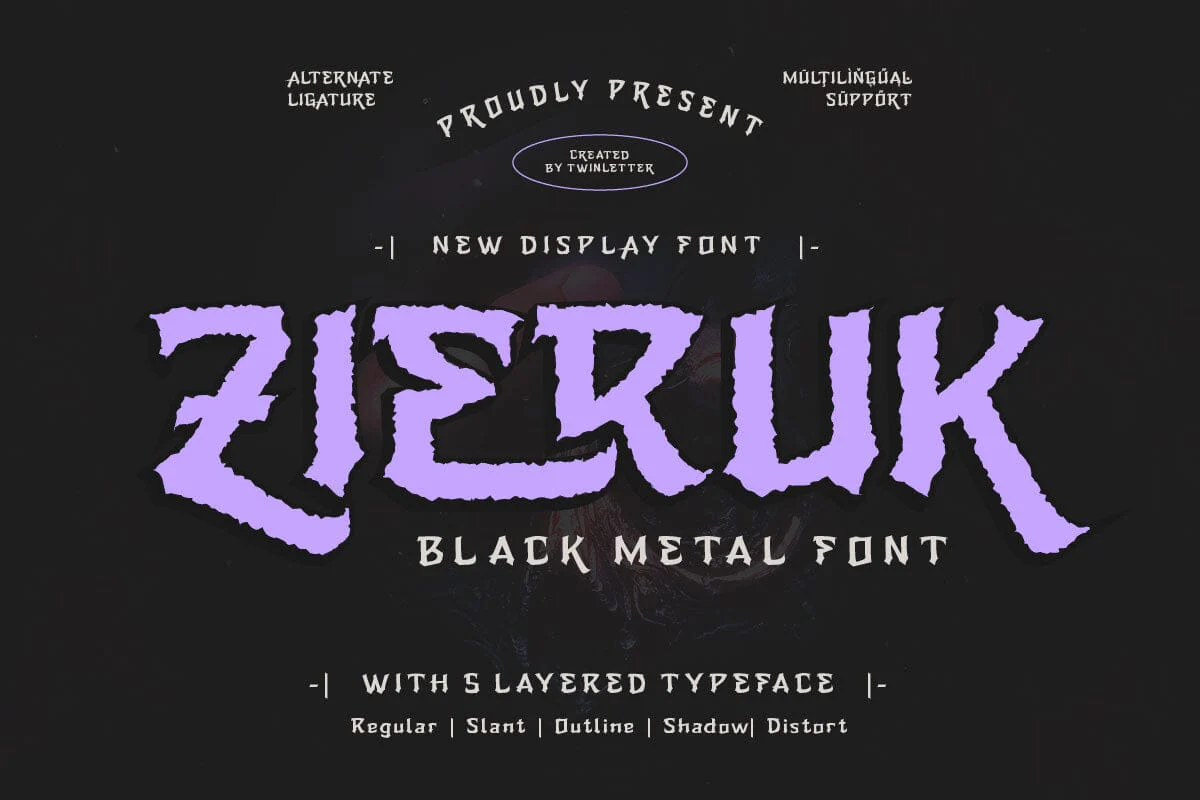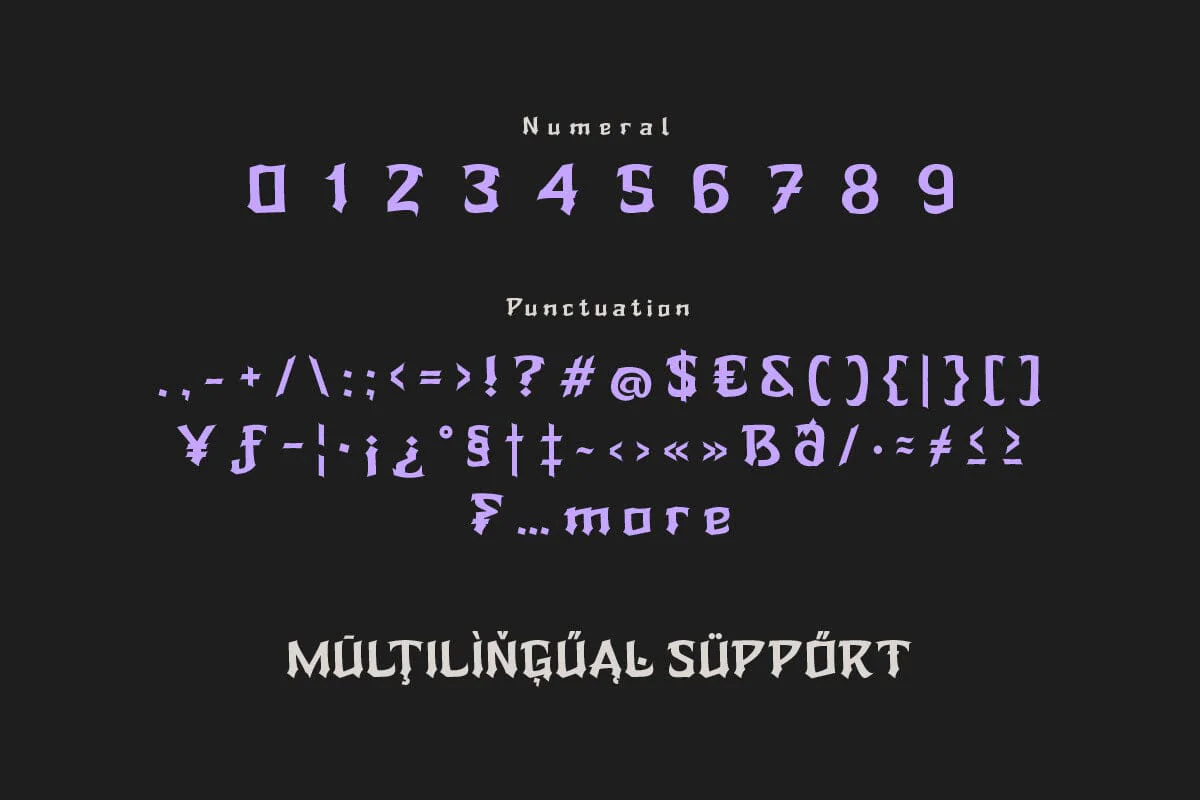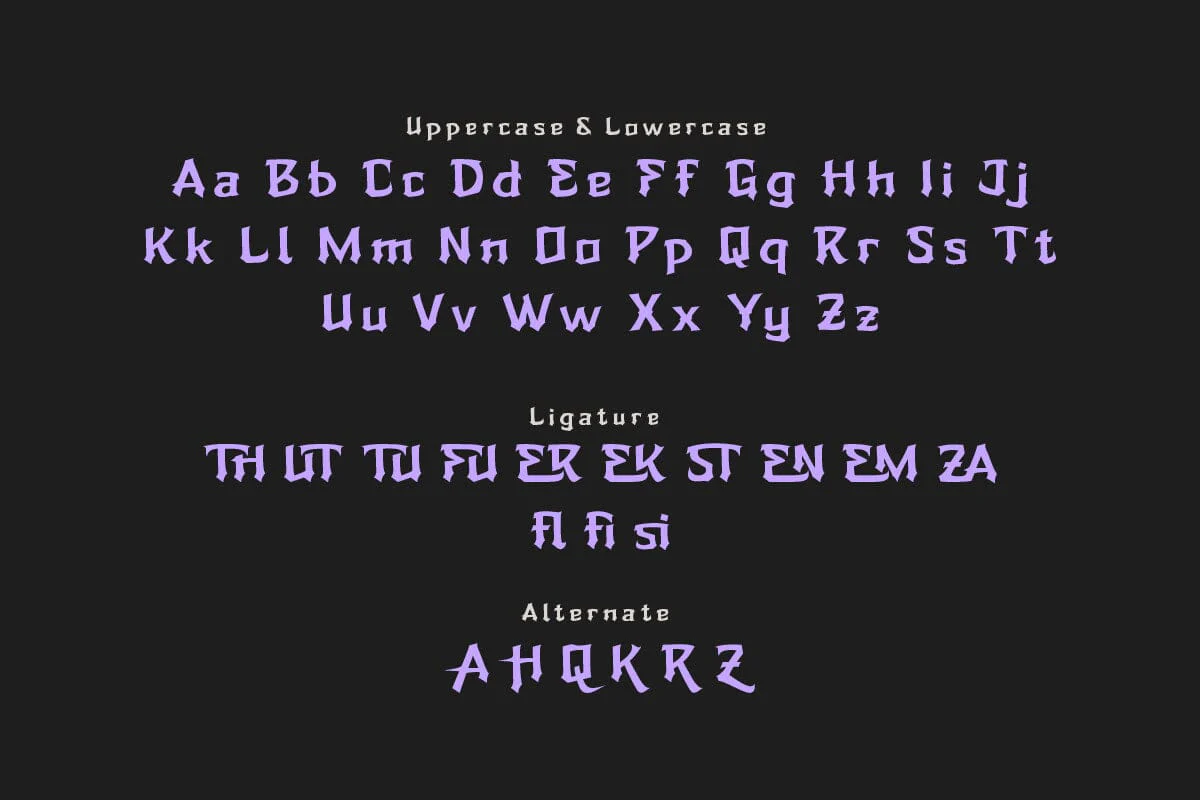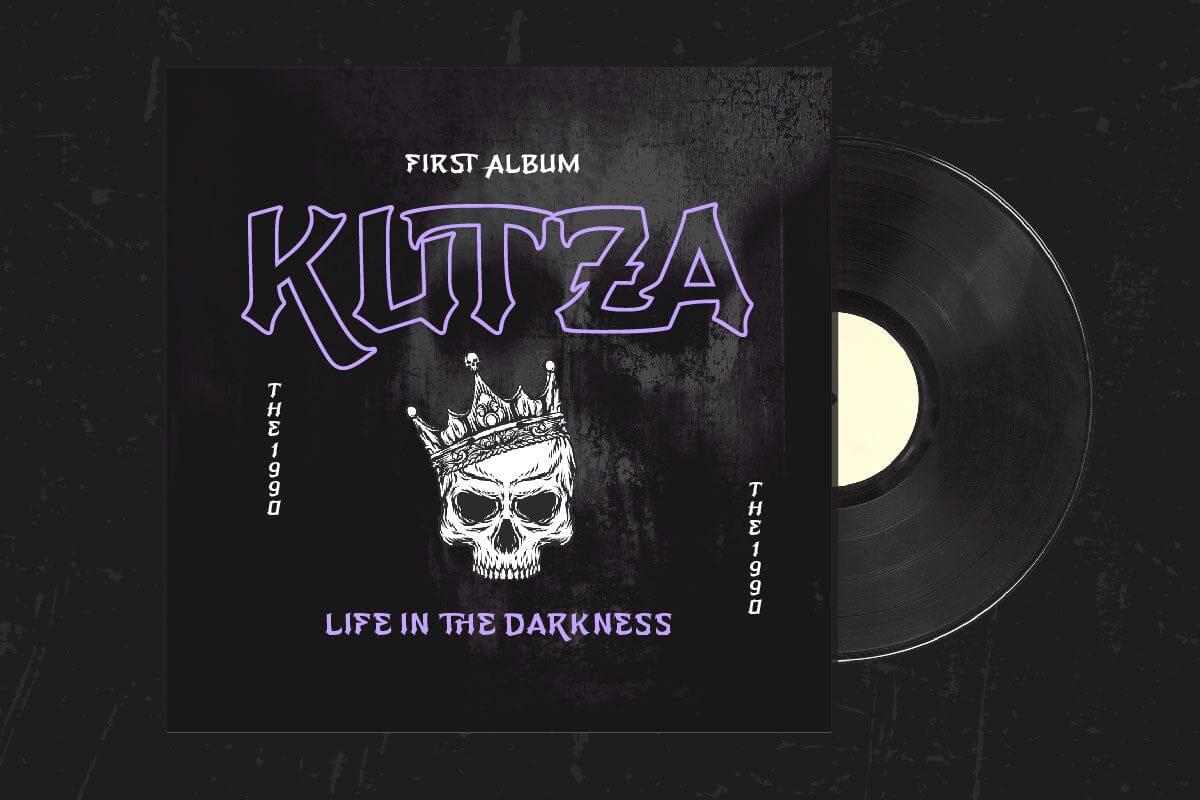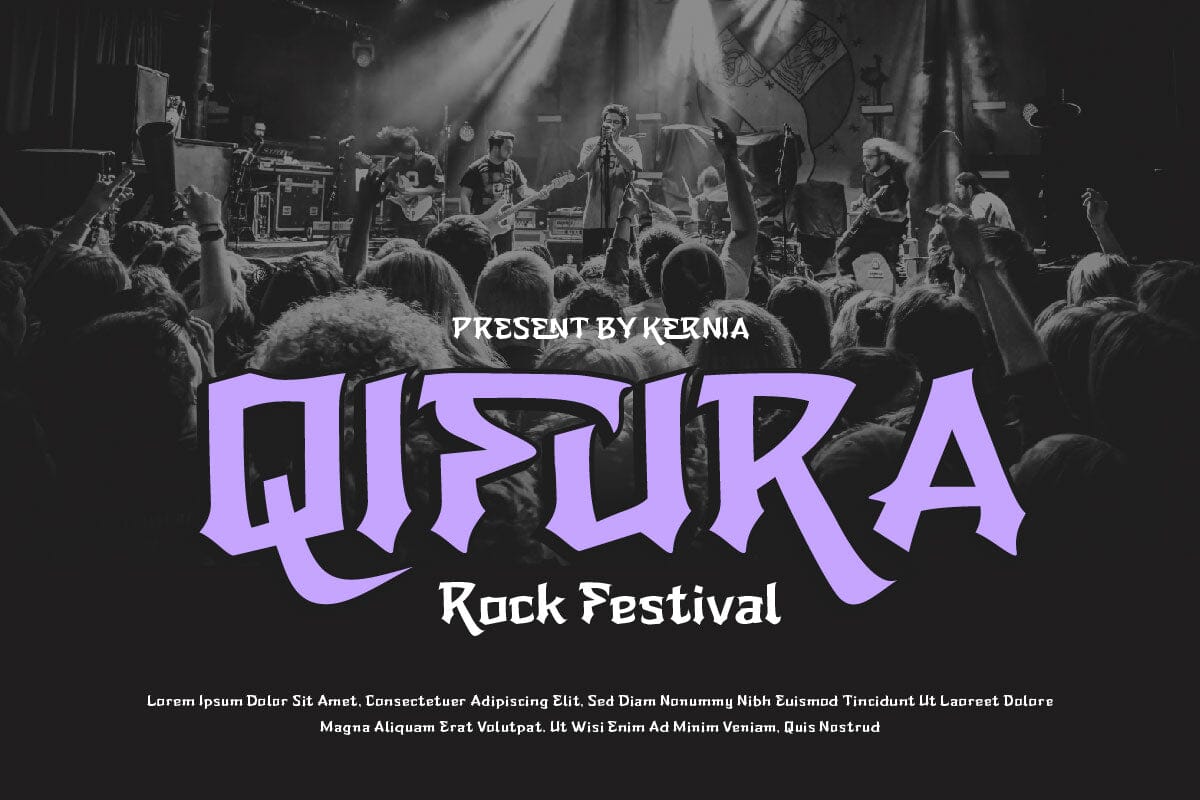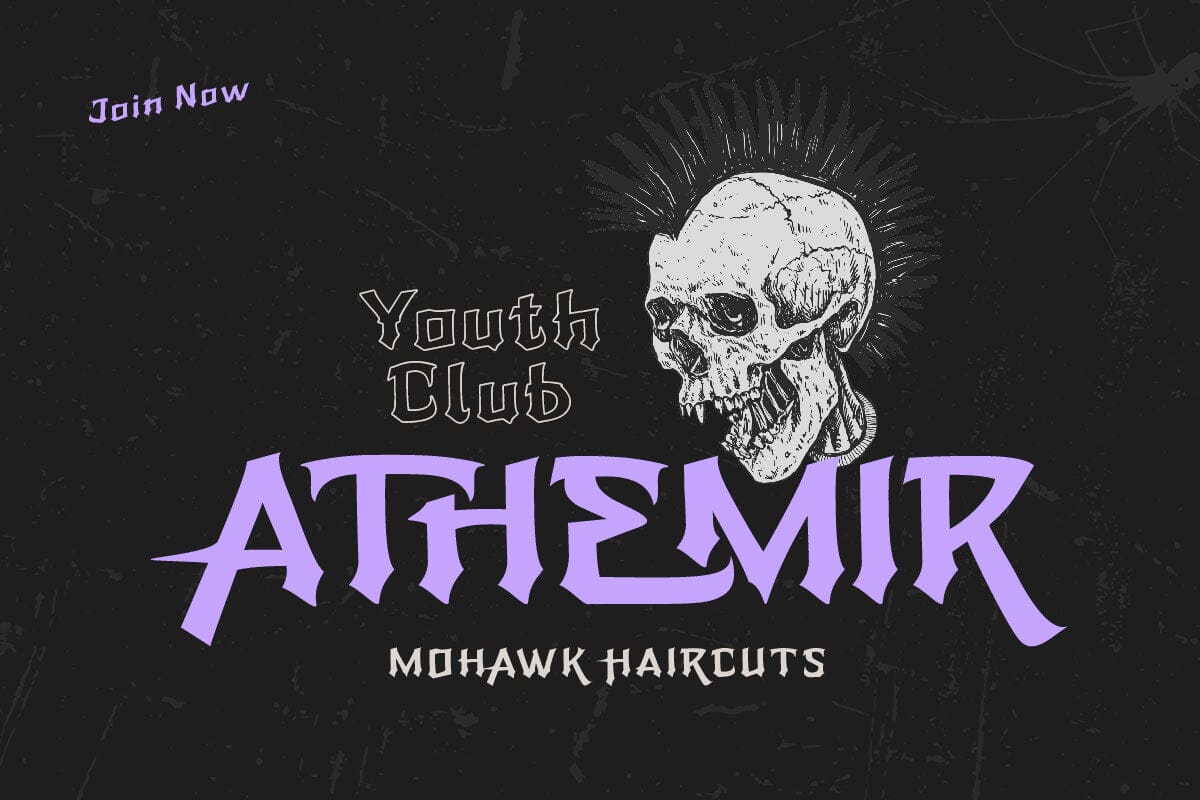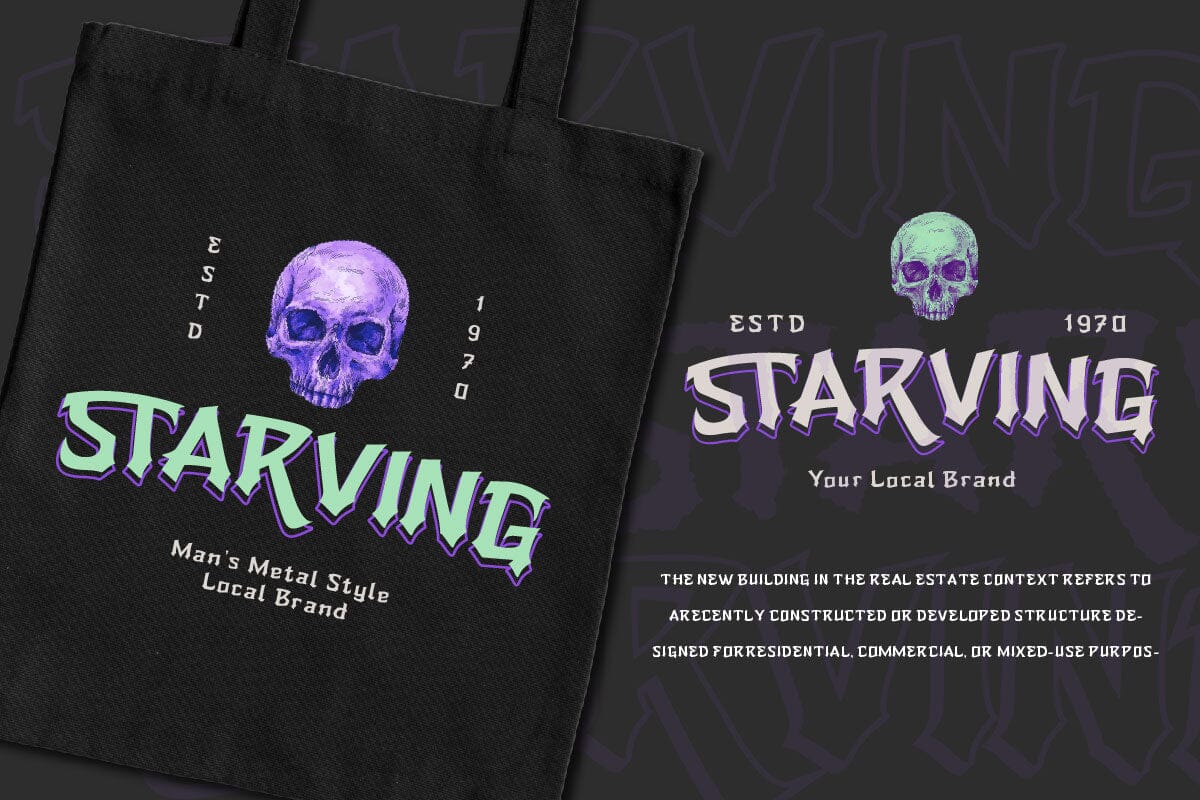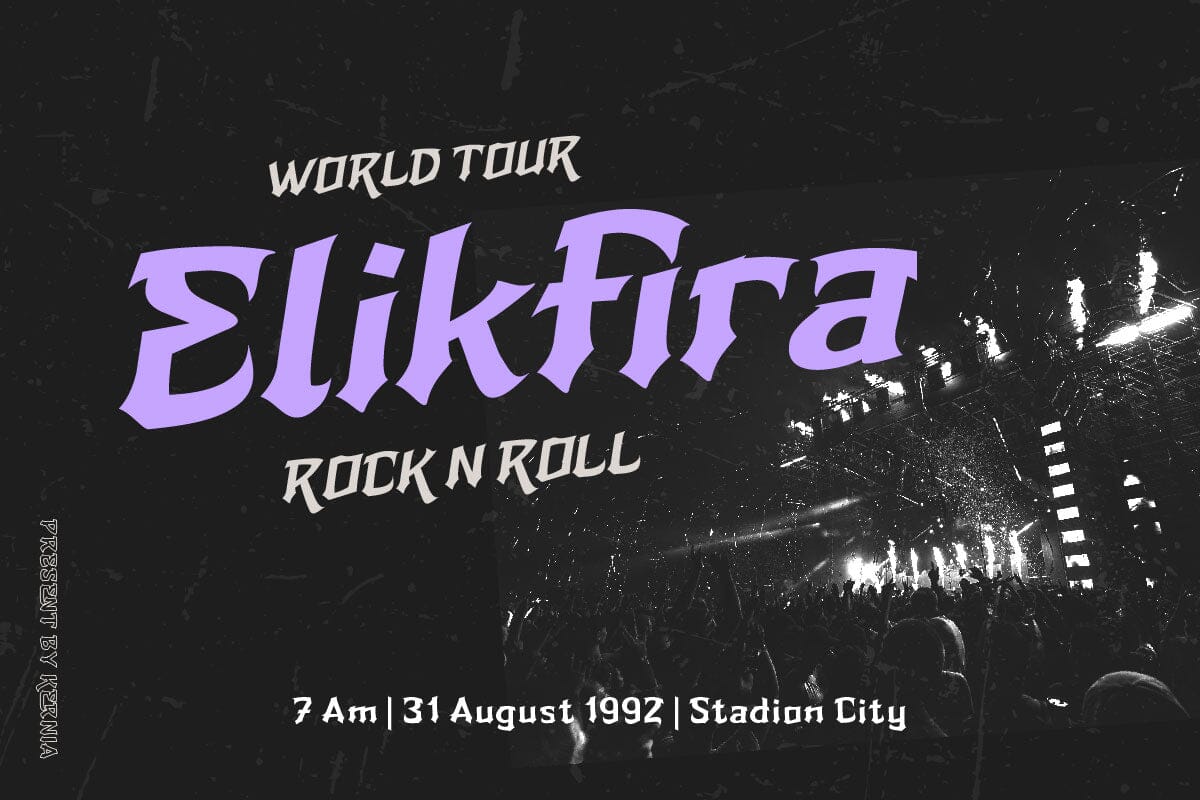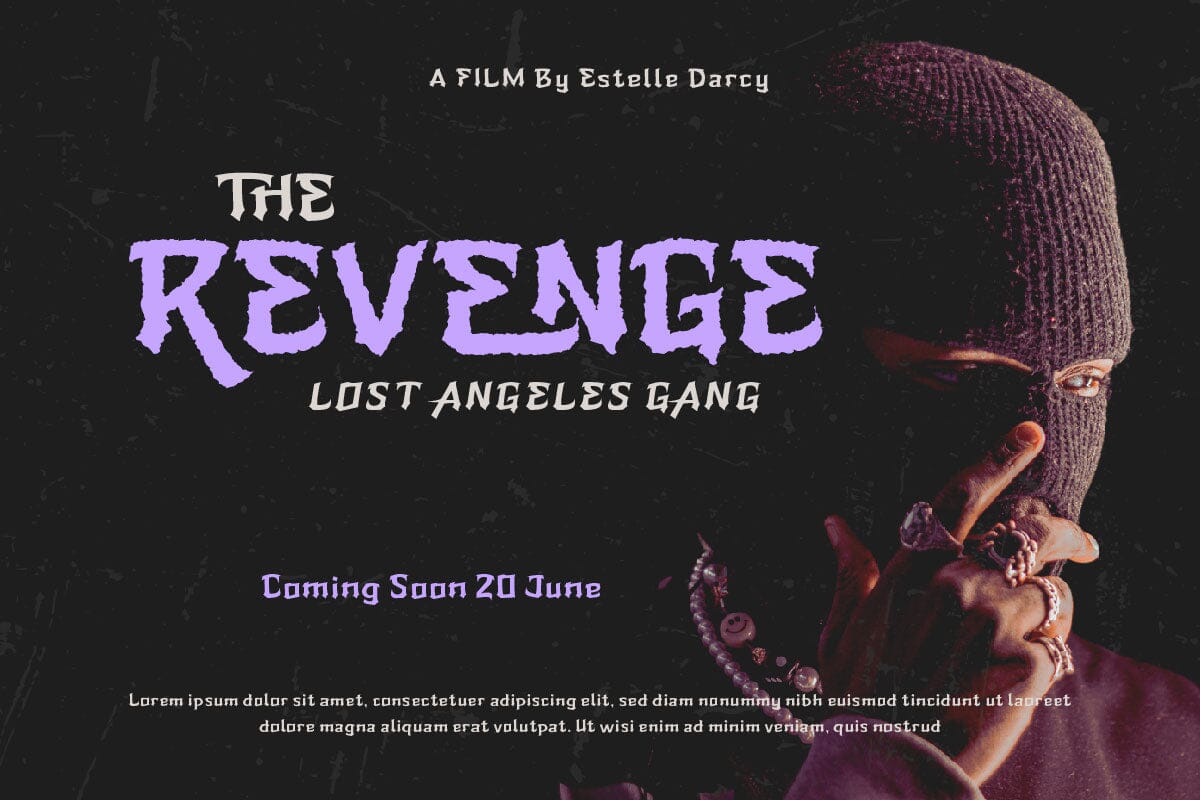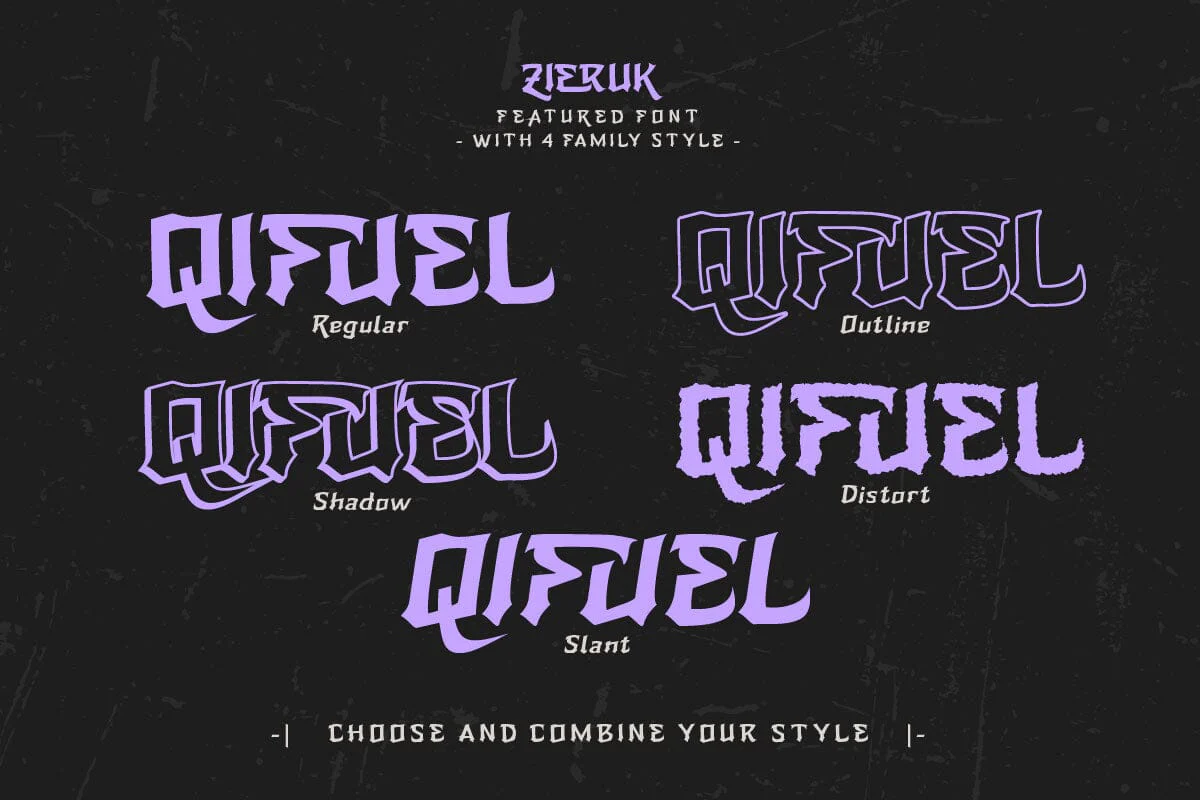
Zieruk - Black Metal Font
Zieruk is a typeface specifically designed to create a strong, dark look and depict a black metal aesthetic. This font combines gothic, gritty, and experimental elements, creating typographic characteristics often associated with the extreme metal music genre.
Each letter in Zieruk is designed with sharp details and strong angles, creating a loud and aggressive feel. This font is often used in band merchandise designs, albums, or concert posters that want to emphasize a dark and avant-garde aesthetic.
Zieruk is a strong choice for designs that require a look that fits the black metal aesthetic. With its unique characteristics and dark atmosphere, this font can provide a strong and striking visual identity to design projects related to the world of metal music.
Zieruk is a typeface specifically designed to create a strong, dark look and depict a black metal aesthetic. This font combines gothic, gritty, and experimental elements, creating typographic characteristics often associated with the extreme metal music genre.
Each letter in Zieruk is designed with sharp details and strong angles, creating a loud and aggressive feel. This font is often used in band merchandise designs, albums, or concert posters that want to emphasize a dark and avant-garde aesthetic.
Zieruk is a strong choice for designs that require a look that fits the black metal aesthetic. With its unique characteristics and dark atmosphere, this font can provide a strong and striking visual identity to design projects related to the world of metal music.